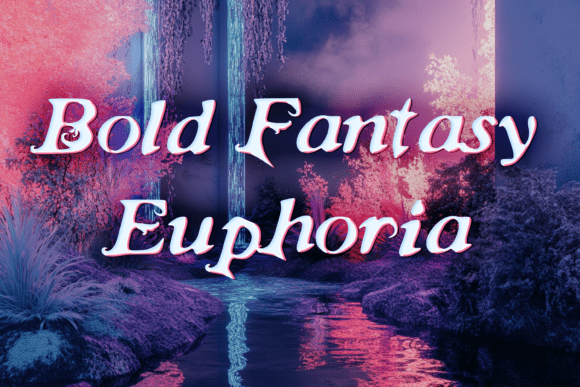
Unleash Your Creativity: Discover the Magic of Bold Fantasy Euphoria Font
Have you ever stared at a blank page, searching for the perfect font to bring your imagination to life? It’s that moment when the blank slate of a new project becomes a canvas of endless possibilities. And then, it hits you – the perfect font that sets your heart racing and sparks a burst of creativity.
Introducing the “Bold Fantasy Euphoria Font,” a striking and dynamic typeface designed to transport your designs to a world of fantasy and wonder. With its clean lines and subtle flourishes, this font combines modern typography with a touch of magic, making it perfect for designers seeking to elevate their fantasy-themed projects. Whether you’re creating book covers, gaming graphics, or branding materials, the Bold Fantasy Euphoria Font is the perfect companion to help you unleash your creativity and bring a sense of wonder to every project.
Bold Fantasy Euphoria Font Key Features
- Unique Characteristics: The Bold Fantasy Euphoria Font features intricate, hand-drawn designs with fantasy and mystical elements, making it ideal for use in fantasy, sci-fi, and adventure-themed projects.
- Font Style: The font is available in a single bold style, adding a sense of drama and emphasis to text.
Bold Fantasy Euphoria Font Review
At first glance, the Bold Fantasy Euphoria Font seems like a dream come true for anyone looking for a whimsical and eye-catching font. ✨ The intricate details and elaborate flourishes make it perfect for creating magical and mystical designs. The font is truly a work of art, with its ornate swashes and flourishes that add a touch of elegance to any project.
- The Bold Fantasy Euphoria Font is ideal for creating fantasy and sci-fi book covers, posters, and advertisements.
- The font is also great for creating invitations, greeting cards, and other celebratory materials.
- The font’s elaborate details make it perfect for creating intricate and ornate designs.
However, the Bold Fantasy Euphoria Font has some limitations that might make it difficult to use in certain projects. ⚠️ The font is quite ornate, which can make it difficult to read in certain contexts. Additionally, the font’s elaborate details can make it difficult to combine with other fonts, which can limit its versatility.
Overall, I think the Bold Fantasy Euphoria Font is a great choice for anyone looking to add a touch of magic to their designs. While it may have some limitations, the font’s unique details and flourishes make it a truly special font that is sure to make any project stand out.
Getting the Most Out of the Font
To get the most out of the Bold Fantasy Euphoria font, try combining it with bold colors, striking graphics, and ornate decorations. Experiment with different font sizes and styles to create visual interest and emphasize key points.
The Bold Fantasy Euphoria font is perfect for fantasy-themed projects, such as:
– Book covers and illustrations
– Fantasy game UI and graphics
– Whimsical greeting cards and invitations
– Dreamy and imaginative posters and flyers